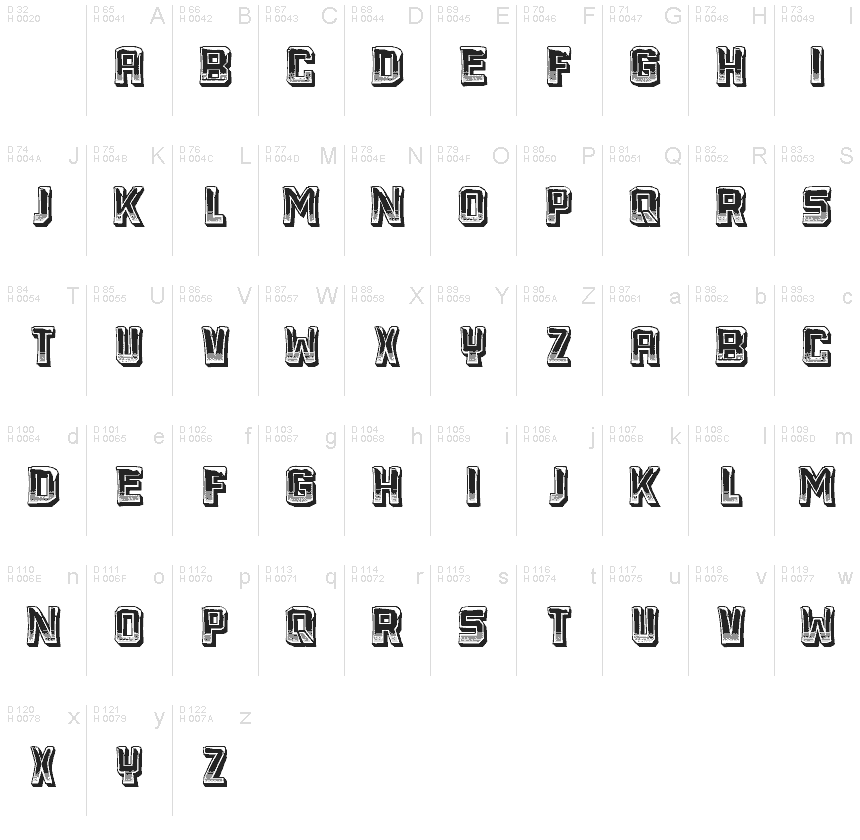
Freezing Regular
Freezing font by Vladimir Nikolic is a unique bold display font. The decorative design has an unusual style that features textured shading and cold-themed elements. Its thick lettering gives a dramatic impact that combines perfectly with its retro aesthetic and vintage poster vibe.